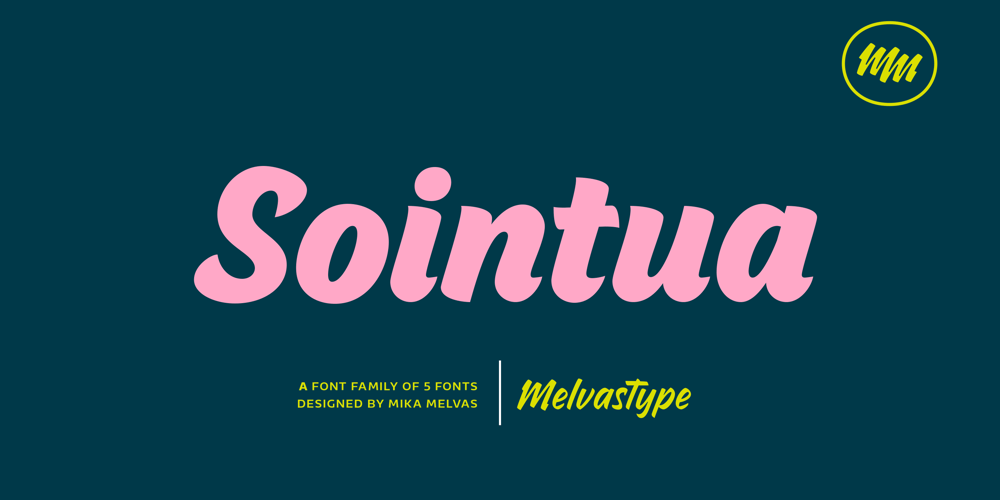
Sointua Font Family was designed by Mika Melvas and published by Melvastype. Sointua contains 5 styles and family package options. Sointua is a soft, brush-drawn typeface designed to bring warmth and approachability to your projects. With five versatile weights and 631 meticulously crafted glyphs, this font is perfect for packaging, titles, and any design where a friendly and inviting feel is key. Its smooth curves and flowing strokes make it ideal for brands that want to convey a human touch while remaining polished and professional.Sointua features stylistic alternates for capital letters (stylistic set 1, ss01), offering extra flair and flexibility for creating distinctive designs. With extensive language support and OpenType features, including ligatures and alternate characters, Sointua ensures your design stands out in print and digital spaces. Whether used for eye-catching headlines or elegant packaging, Sointua provides the perfect balance of charm and sophistication.